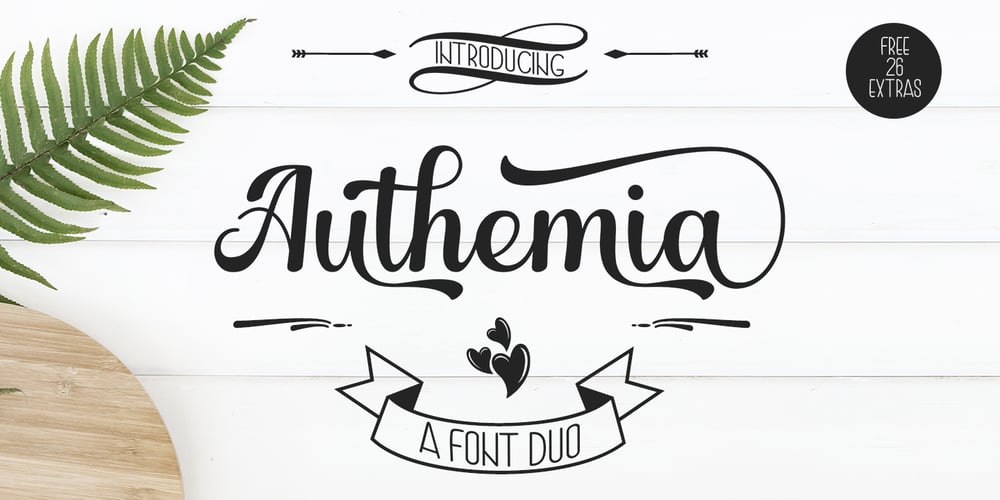
Authemia Font Family was designed by Muhajir and published by Skinny Type. Authemia contains 3 styles and family package options. Authemia is a font duo Script, Sans, and plus Extras typeface with characters dancing along its baseline. It has a casual and elegant touch. Can be used for various purposes such as logos, wedding invitations, headings, t-shirts, letterheads, signage, labels, news, posters, badges etc.OpenType features with alternative styles, ligatures, and multi-language support.To enable OpenType Stylistic alternates, you need a program that supports OpenType features such as Adobe Illustrator CS, Adobe Indesign & CorelDraw X6-X7, Microsoft Word 2010 or a later version.How to access all alternative characters, using the Windows Character Map with Photoshop:https://www.youtube.com/watch?v=Go9vacoYmBwHow to access all alternative characters using Adobe Illustrator:http://youtu.be/iptSFA7feQ0There are additional ways to alternate / swash, using the Character Map (Windows), Nexus Font (Windows), Font Book (Mac) or a software program like PopChar (for Windows and Mac).Need help? If you need help or advice, please contact me via email.Thank you!